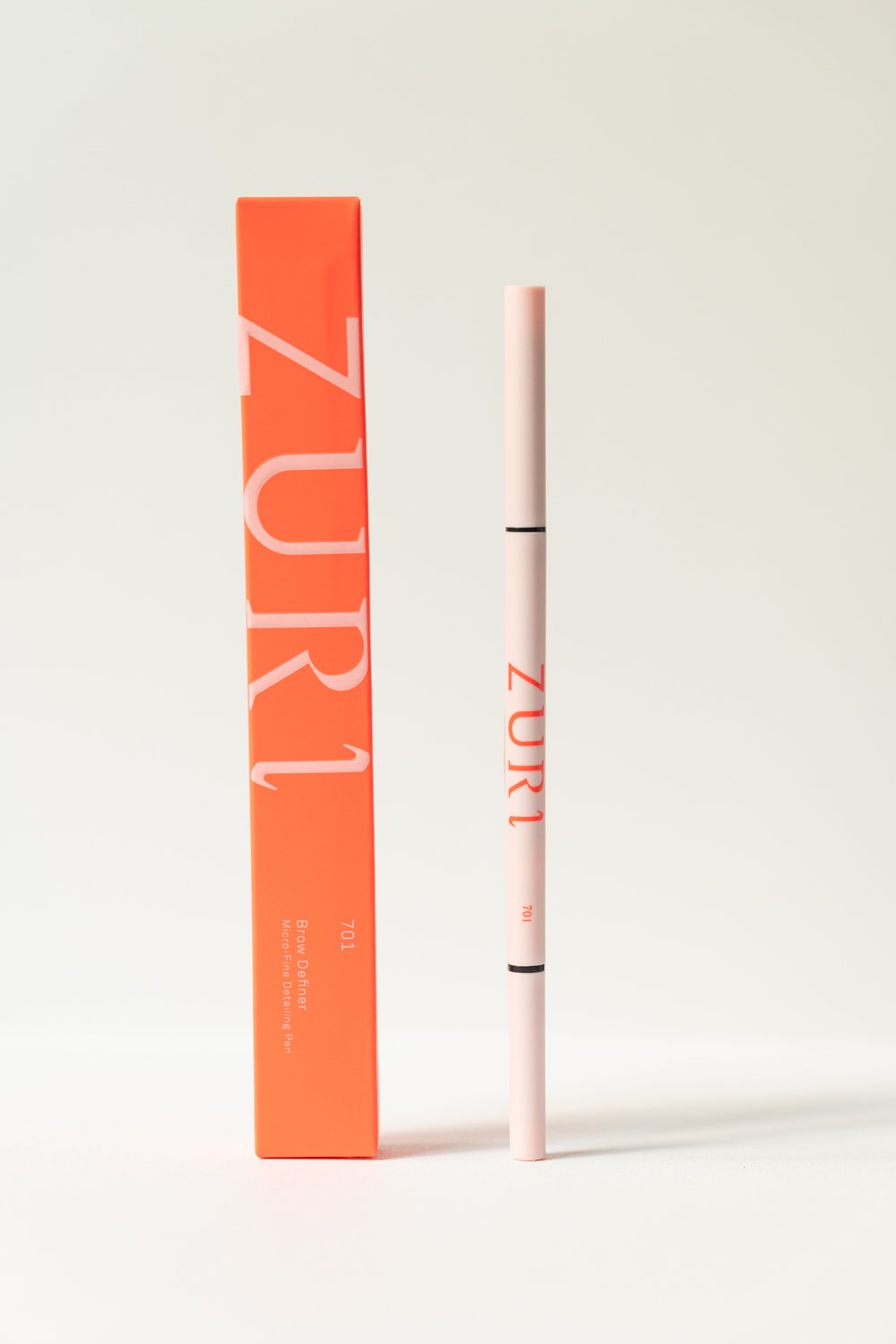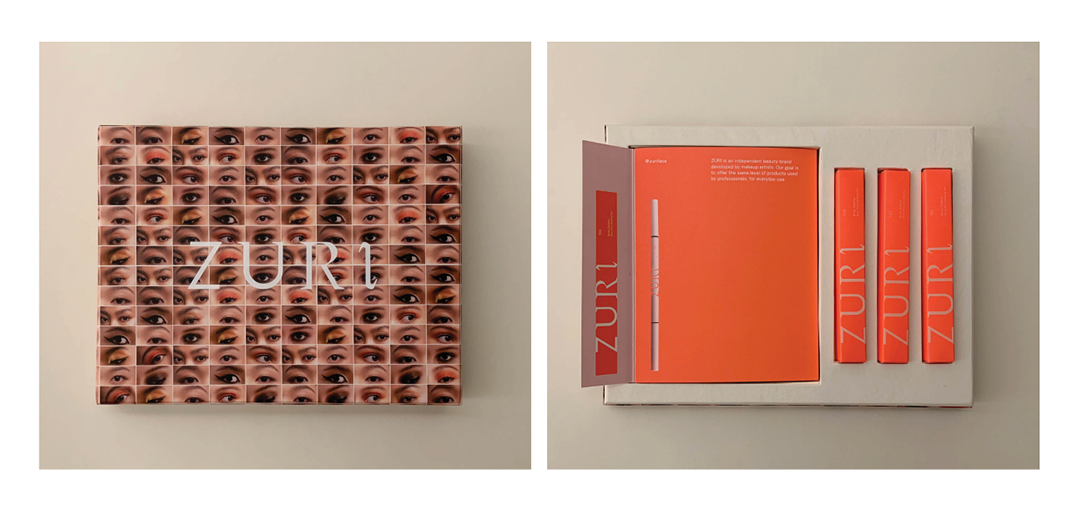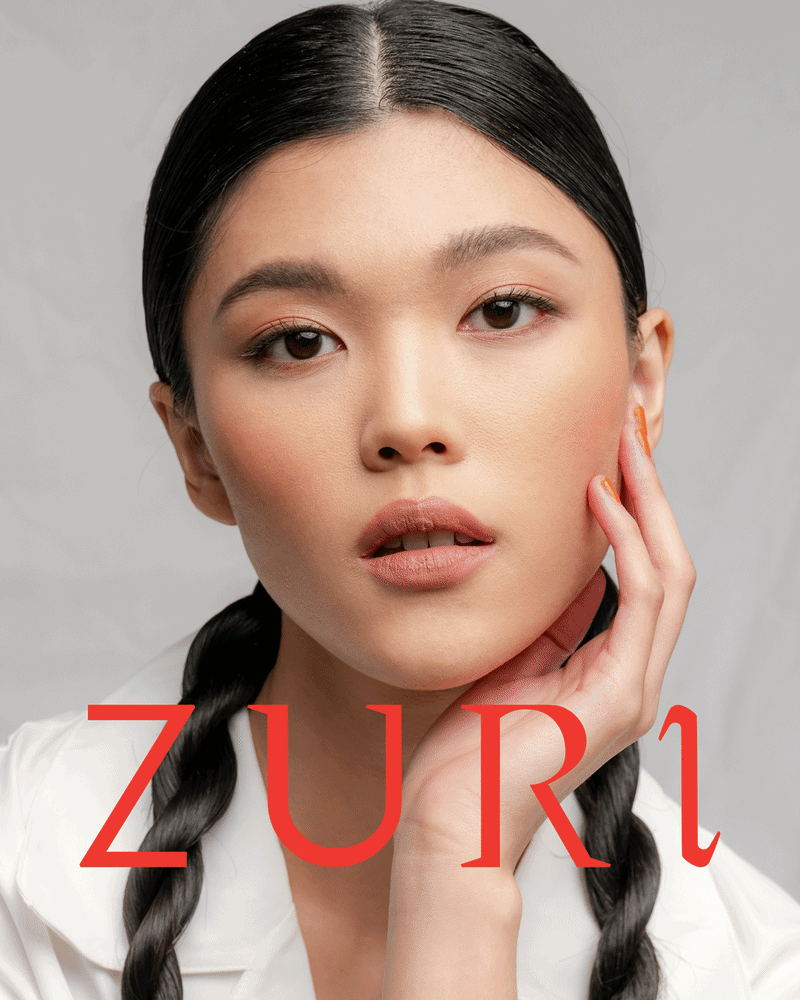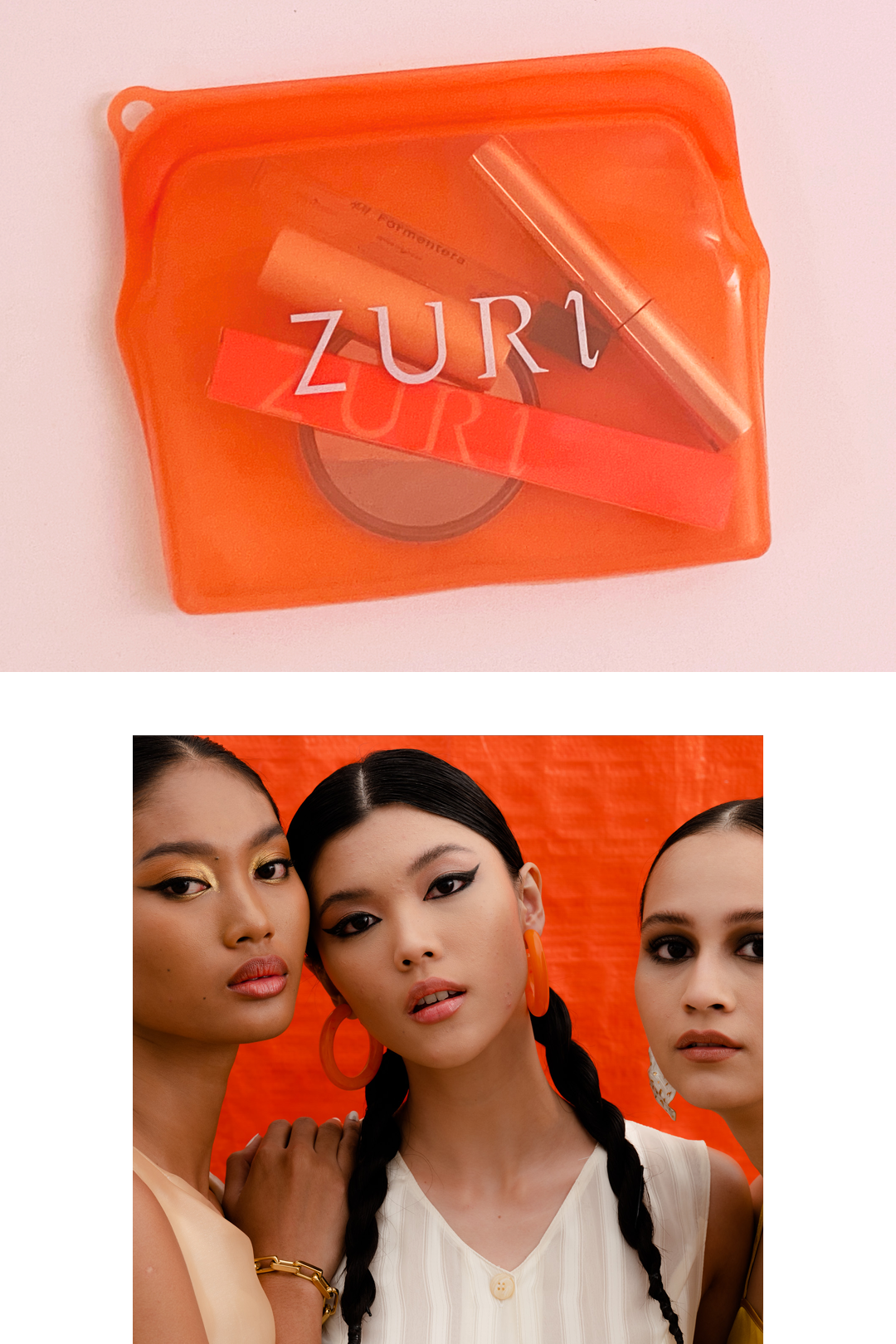
ZURI
The Brief
Zuri was developed by Priscilla Rasjid (Sissy Sosro), a Jakarta-based makeup artist with over a decade of professional experience across Paris, Sydney, and Singapore, who wanted to launch an independent beauty brand that made professional-quality results accessible to everyday consumers. The positioning was specific: “Now you can create an everyday beauty like a pro.”
The challenge was translating that into a visual identity that felt designed and considered without losing the accessibility the brand was built on. Zuri needed to stand for something beyond affordable cosmetics. It needed a concept sturdy enough to carry a full product system, beginning with an eyebrow pencil in three shades.
The name itself set the tone: Zuri means beauty in Swahili. The identity had to earn that weight.
The Work
The concept the studio developed was time.
Makeup is one of the few consumer products that is explicitly bound to the rhythm of a day. It is applied, worn, and reapplied. Rather than treating this as a functional fact, the studio treated it as the brand’s organizing logic. Time became the framework through which every visual decision was made.
The logo system is structured around four parts of the day: morning, noon, evening, and night. Each part represents a distinct moment of reapplication. The mark holds all four simultaneously, not as a sequence but as a complete picture of the time a day contains.
The product naming system follows the same logic. The three eyebrow pencil shades are named 701, 702, and 703—numerical indicators that function as temporal codes rather than descriptive color names.
Typographic Decisions
The logo is set in a custom typeface designed by Latihan Tipografi specifically for Zuri, built from the ground up rather than drawn from an existing library. The decision was not aesthetic preference but conceptual necessity: no existing typeface could carry the four-part temporal structure the logo system required without the concept reading as applied rather than inherent. The letterforms had to embody the logic of morning, noon, evening, and night.
The System in Use
The physical deliverable is an eyebrow pencil. At this scale, the numerical naming system does its clearest work: 701, 702, 703 reads as a considered series, not three isolated products. The mark, the number, and the color occupy the same surface with the same hierarchy the typographic system establishes everywhere else.